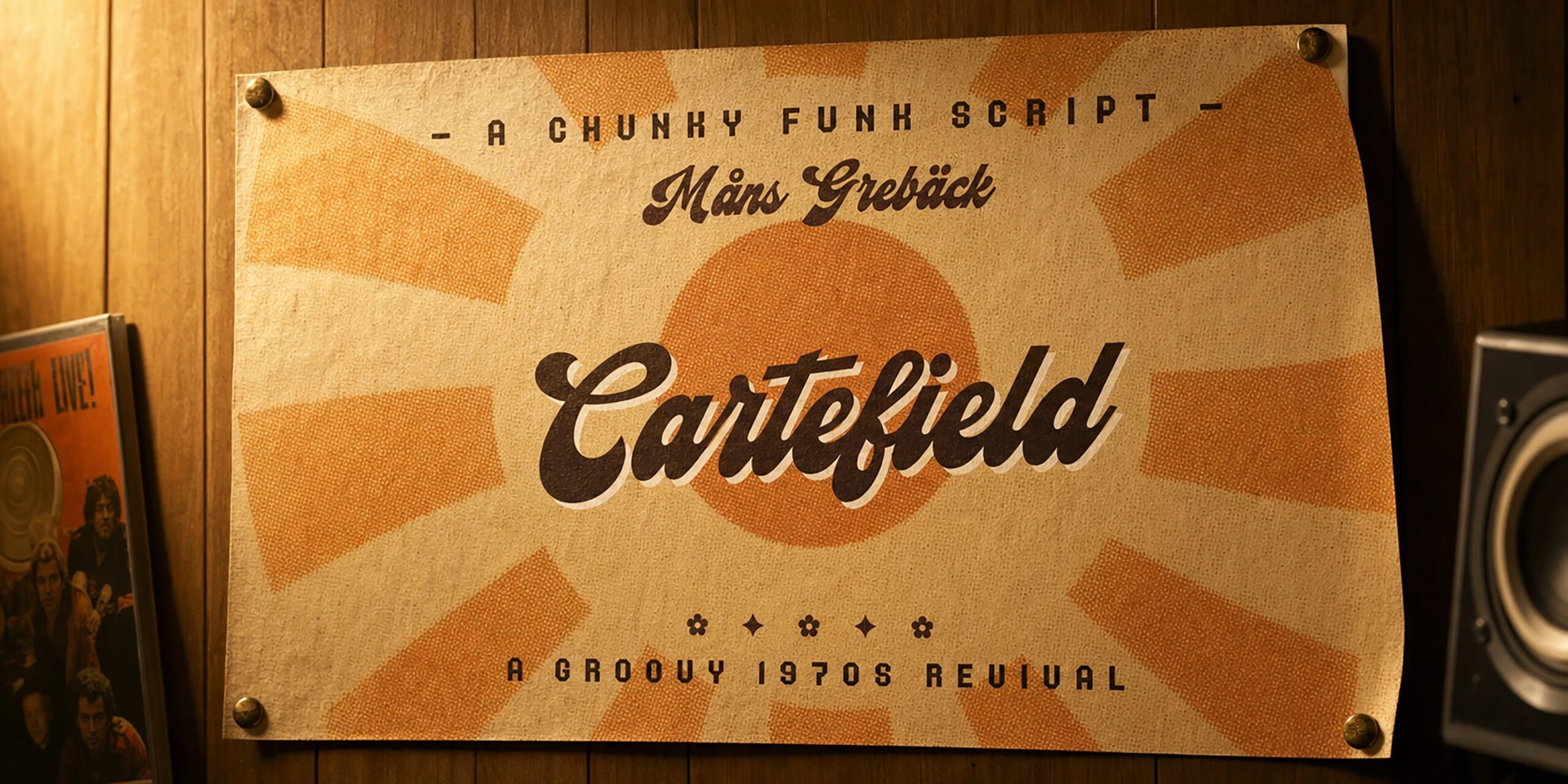
Cartefield – Bold Retro Font
Cartefield – Bold Retro Font is a flexible and reliable font created to fit multiple design needs, from branding and packaging to social media and editorial layouts. Cartefield is a chunky 70s funk script with wide, connected, super-bold letterforms.
Thick rounded strokes, generous bowls, and a slight forward lean — the kind of script you find on a chocolate-bar wrapper or a soul-record sleeve from 1973. Lowercase joins are smooth and the descenders are pronounced, giving it a deep groovy presence on a single line.
Imagine it across the front of a foil-stamped vinyl sleeve with a sunburst printed behind it.
The font is built with advanced OpenType functionality and guaranteed top-notch quality, containing stylistic and contextual alternates, ligatures and more automatic and manual features; all to give you full control and customizability.